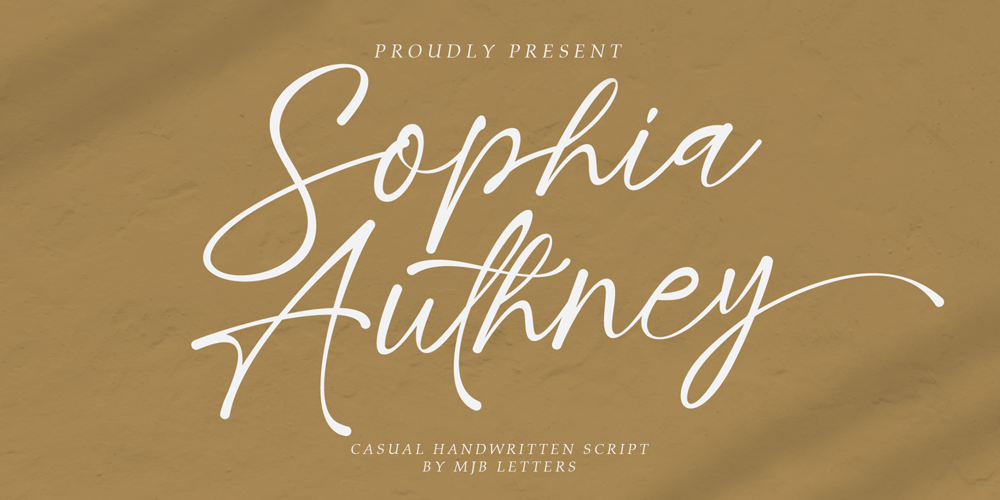
Sophia Authney
Sophia Authney font
Sophia Authney Font Family was designed by Muhammad Mujibulloh and published by MJB Letters. Sophia Authney contains 1 styles and family package options. Elevate your design projects with ‘Sophia Authney,’ a sophisticated calligraphy font that blends modern chic aesthetics with timeless elegance. Perfect for branding, packaging, fashion, and more, this versatile typeface adds a touch of class and finesse to any creative endeavor.Whether you’re creating logos, invitations, social media graphics, or any other project, ‘Sophia Authney’ will help you make a statement with its unique charm and sophistication.